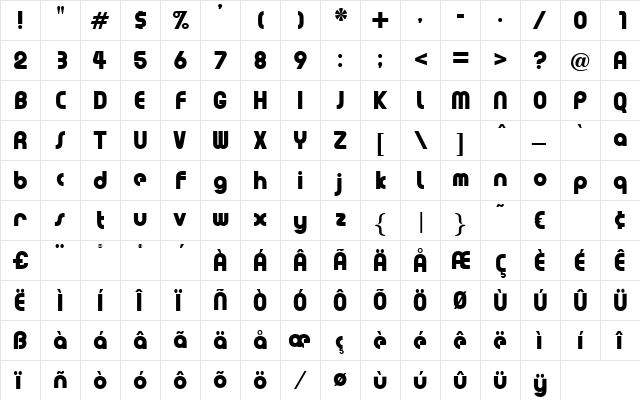
Puppet Regular
Design Context for Puppet Typeface
Puppet takes a measured approach to typography — its balanced proportions and neutral character make it a reliable workhorse for both digital and print work.
Pro Tip: Use Puppet in both headline and body roles to test its range before committing to a single application.